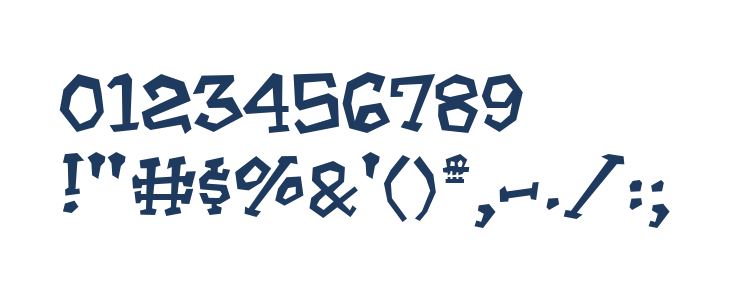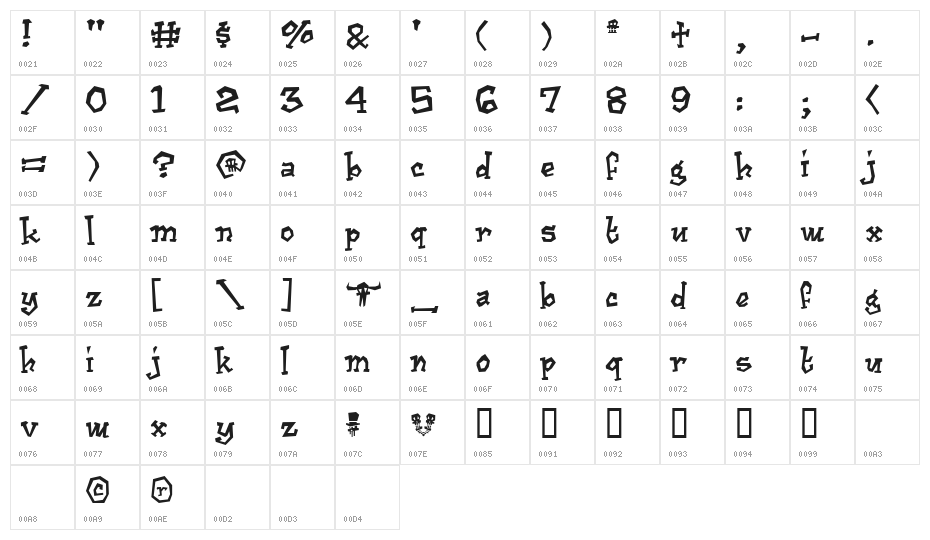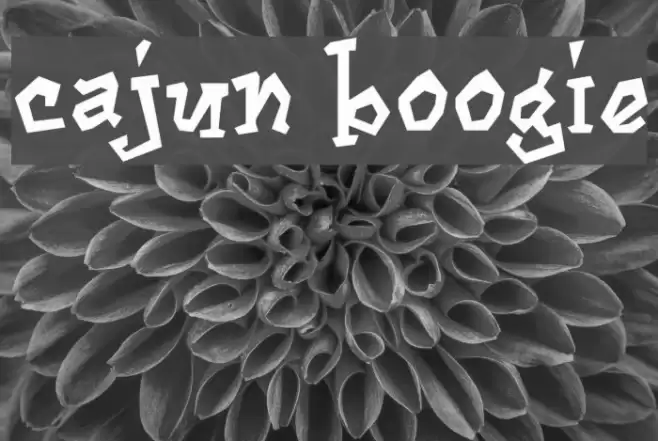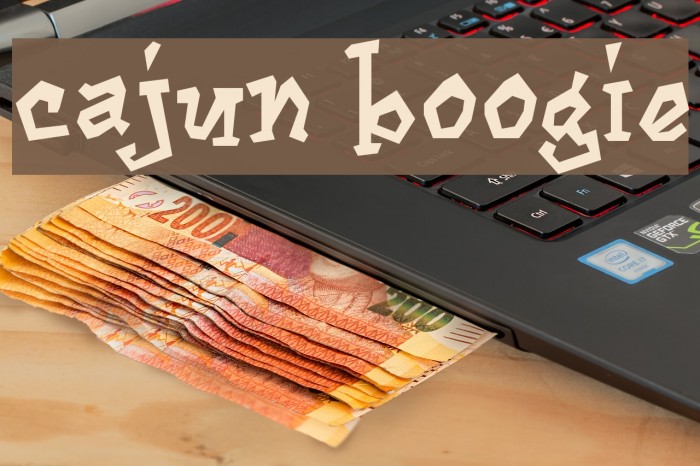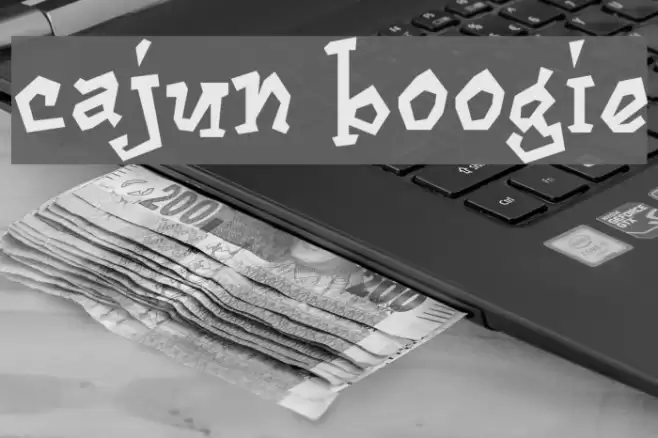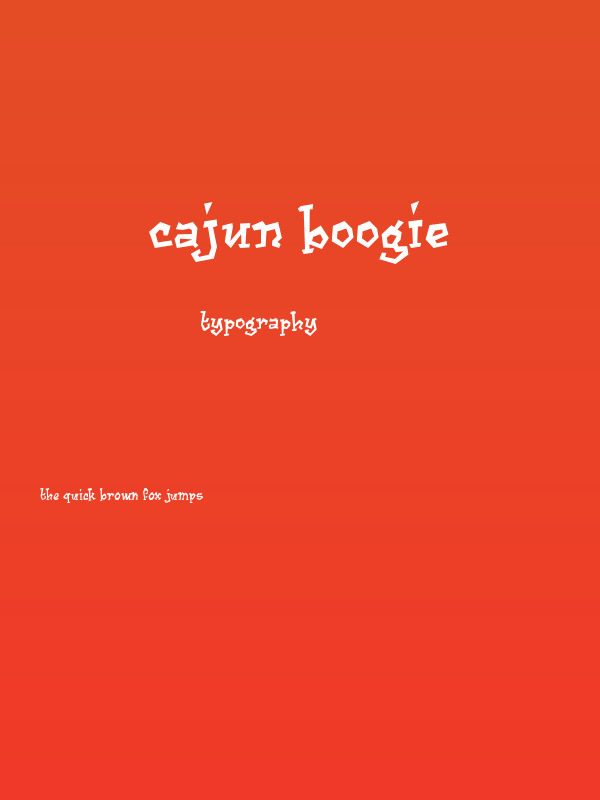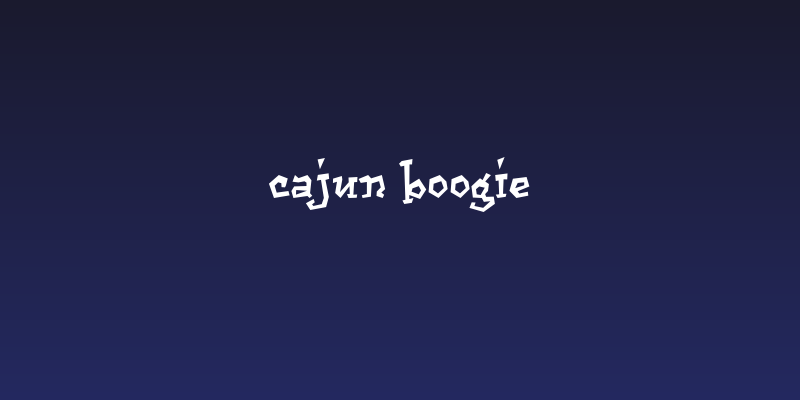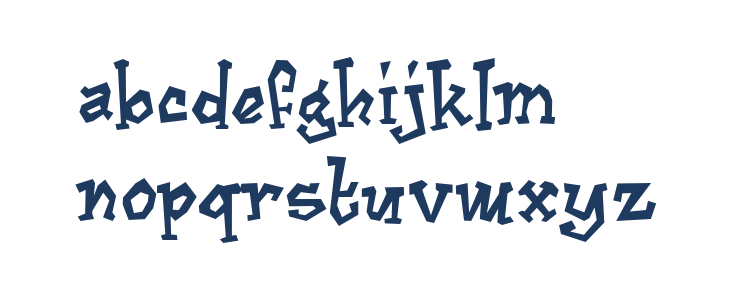
Cajun Boogie Font
Cajun Boogie Description
This font exudes a playful and energetic vibe with its bold, angular characters. Each letter is uniquely crafted with sharp edges and a slightly irregular form, giving it a hand-drawn, whimsical appearance. The uppercase and lowercase letters maintain a consistent style, while the numbers and special characters complement the overall design. The font's distinctive look makes it ideal for projects that require a touch of fun and creativity. Its boldness ensures readability, while the quirky shapes add character and flair.
| Proposed Projects | Perfect for posters, children's books, party invitations, and creative branding projects. |